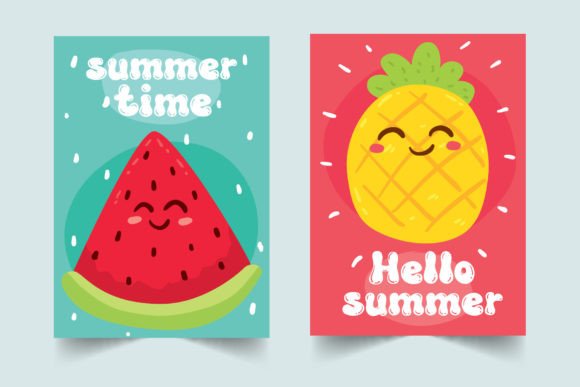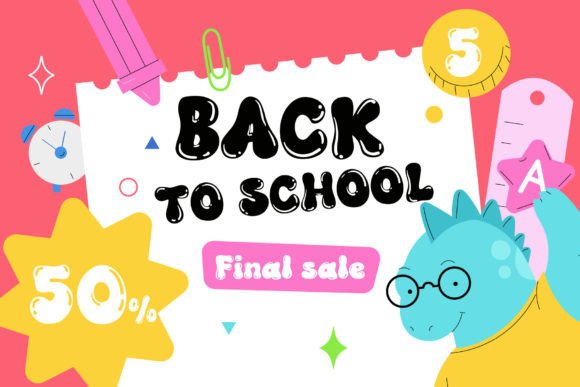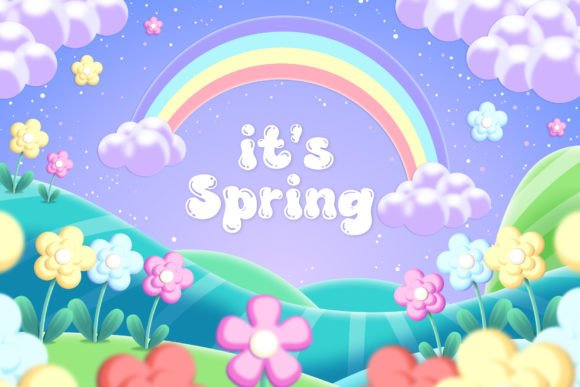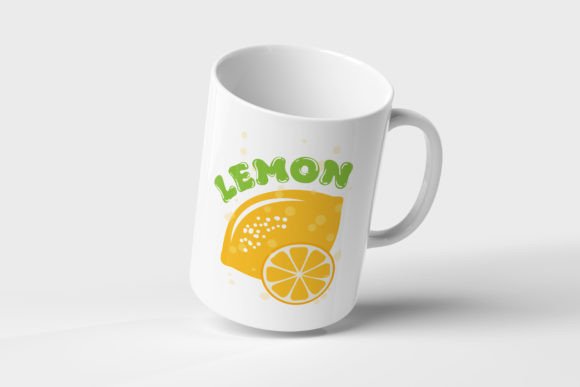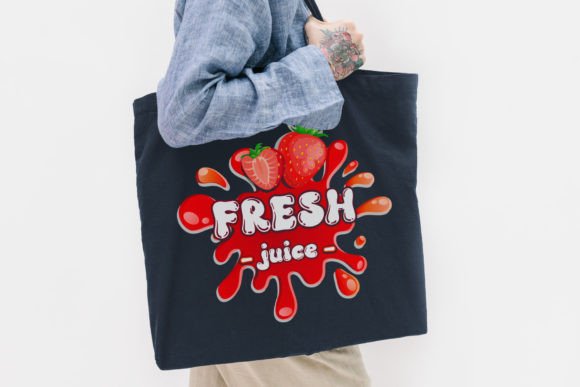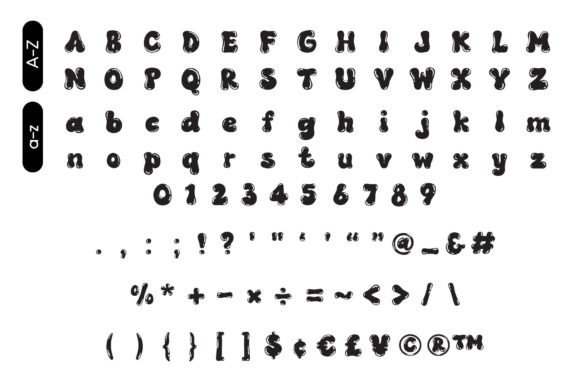
Get Ready to Groove with the Fox Bubble Font
Have you ever been brainstorming a design project and suddenly, a burst of creativity hits you? Maybe it’s the combination of colors, the perfect typography, or a dash of nostalgia that sparks your imagination. For me, it was a childhood summer spent playing in the sun-drenched fields, surrounded by the carefree sounds of the 70s. That’s when I fell in love with the Fox Bubble Font – a groovy, playful display font that captures the essence of the retro era.
This fabulous font is designed to add a touch of personality to any design project. With its fun and funky letterforms, the Fox Bubble Font is perfect for creating eye-catching t-shirts, stickers, children’s book covers, social media posts, or anything in between. Whether you’re a seasoned designer or just starting out, this versatile font is a valuable addition to your toolkit.
Fox Bubble Font Key Features
- Font Family: Fox Bubble is a sans-serif font family, ideal for modern designs and digital applications.
- Unique Characteristics: The font features distinctive rounded shapes and a playful, yet professional aesthetic, making it suitable for creative and corporate designs.
Designer Review: Fox Bubble Font
Overall, I think the Fox Bubble Font has some great qualities, but also some areas where it falls short. ✨
Here are some things that work well:
- Playful and whimsical aesthetic that’s perfect for children’s books, magazines, or any project that needs a fun touch.
- Variety of weights and styles to choose from, allowing for a lot of flexibility in design applications.
However, there are some limitations to consider: ⚠️
- May not be suitable for professional or formal projects, as it can come across as too playful or juvenile.
- Lack of bold or condensed versions of the font, which can limit its use in certain design scenarios.
Overall, I think the Fox Bubble Font is a solid choice for designers who want to add some personality and whimsy to their projects. While it may not be the best fit for every design scenario, it’s definitely worth considering for the right project.
Getting the Most Out of Fox Bubble Font
To get the most out of the Fox Bubble Font, experiment with different font sizes, colors, and styles to create visually appealing text effects. You can also combine the Fox Bubble Font with other fonts to create a unique and playful design.
The Fox Bubble Font is ideal for creating playful, whimsical designs, such as children’s book illustrations, party invitations, and social media graphics. It’s also great for adding a touch of personality to your brand’s visual identity.